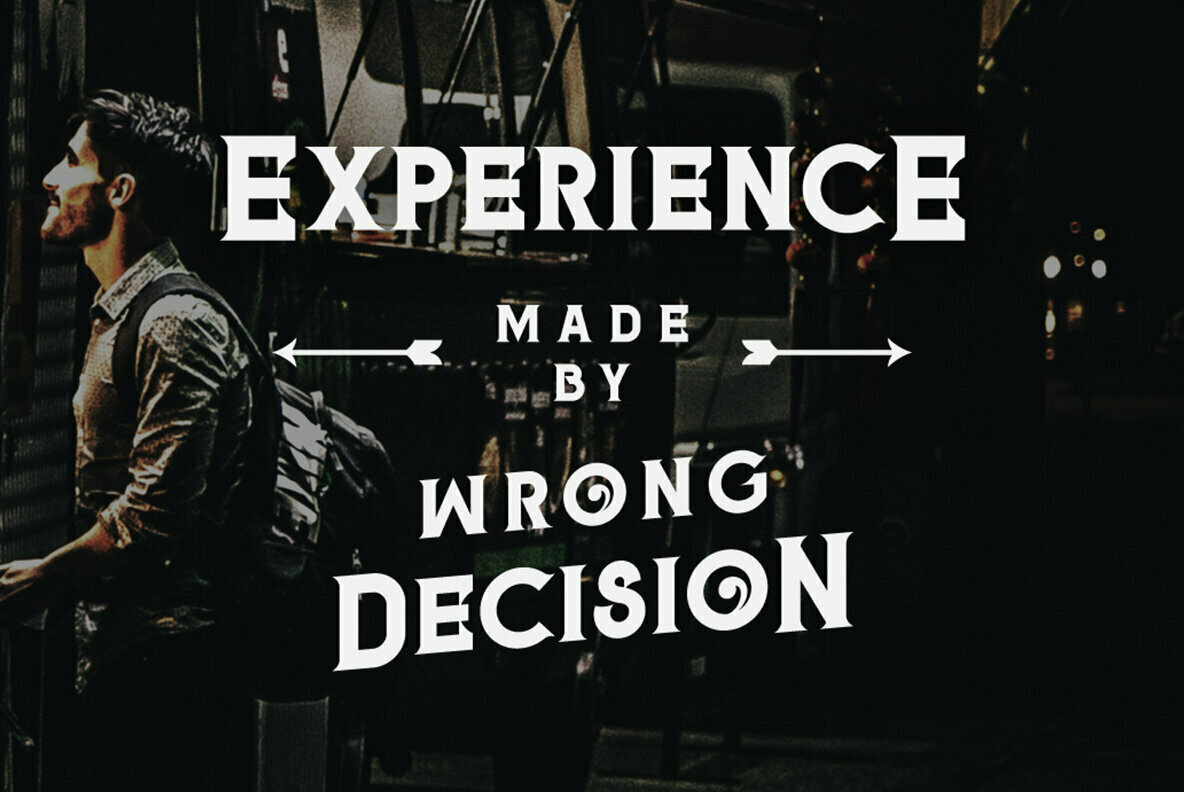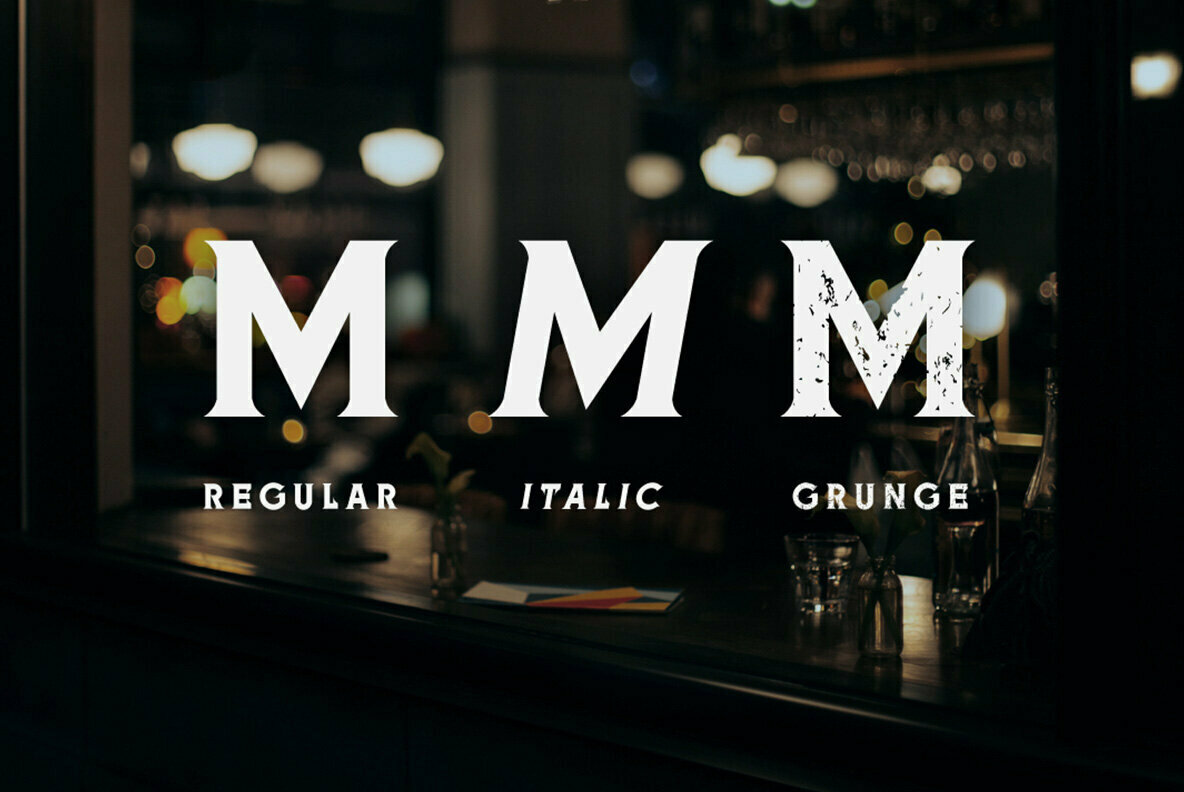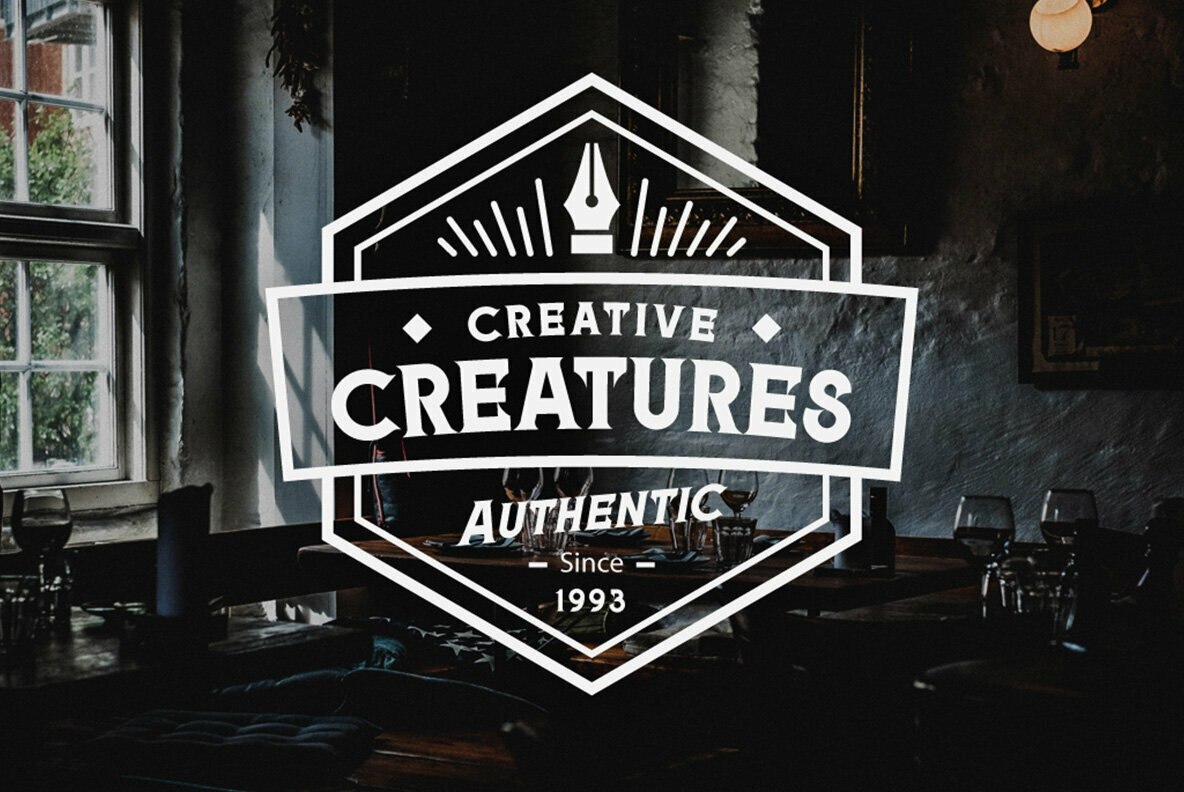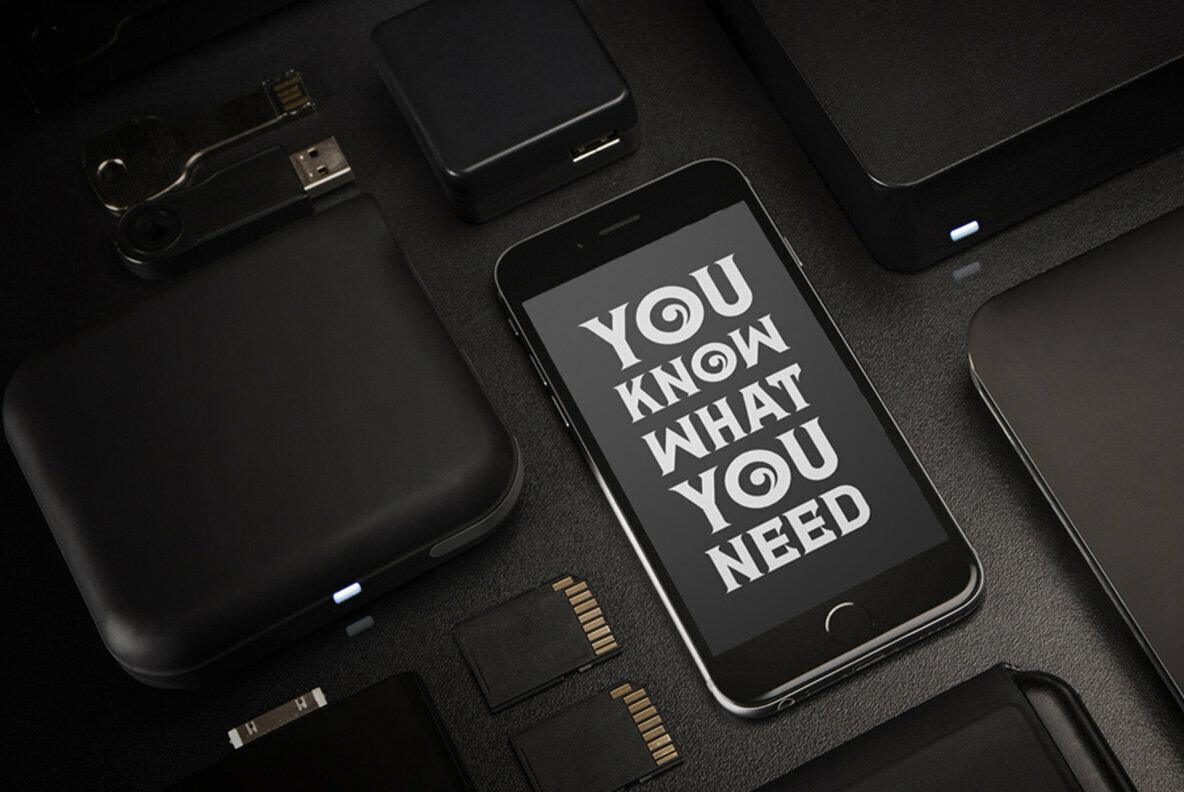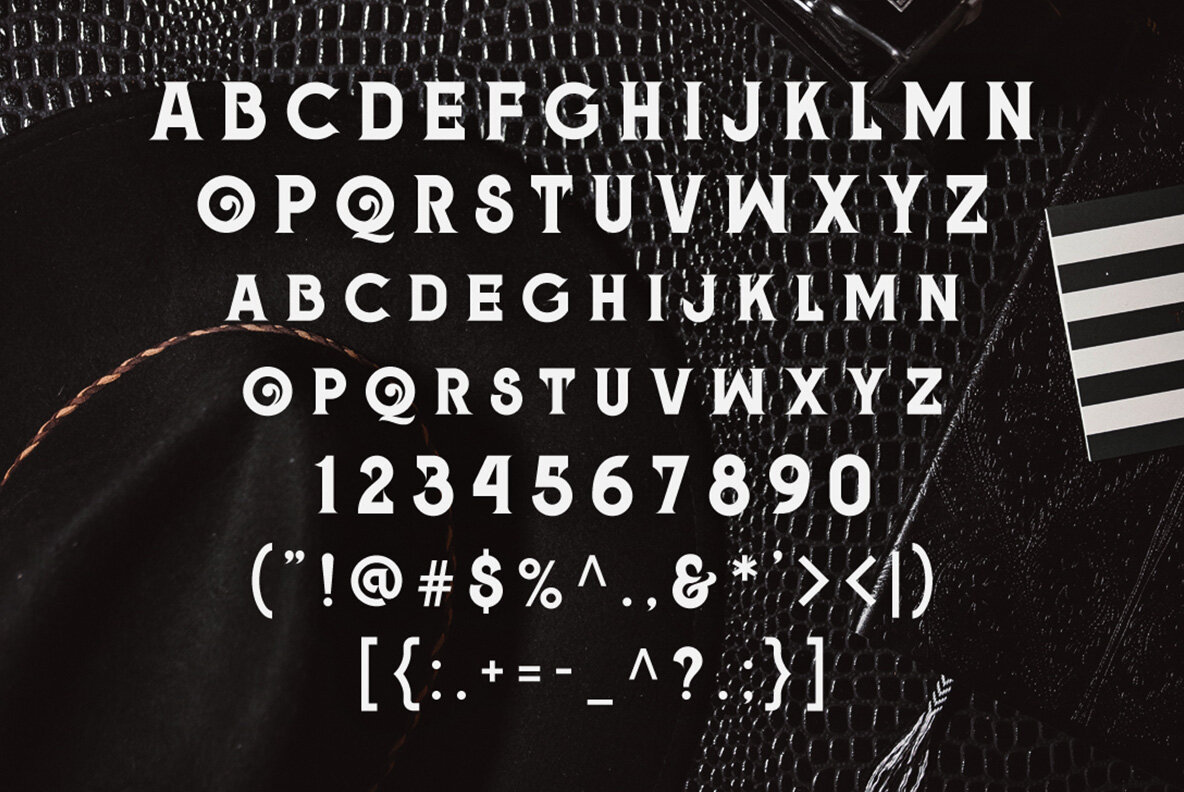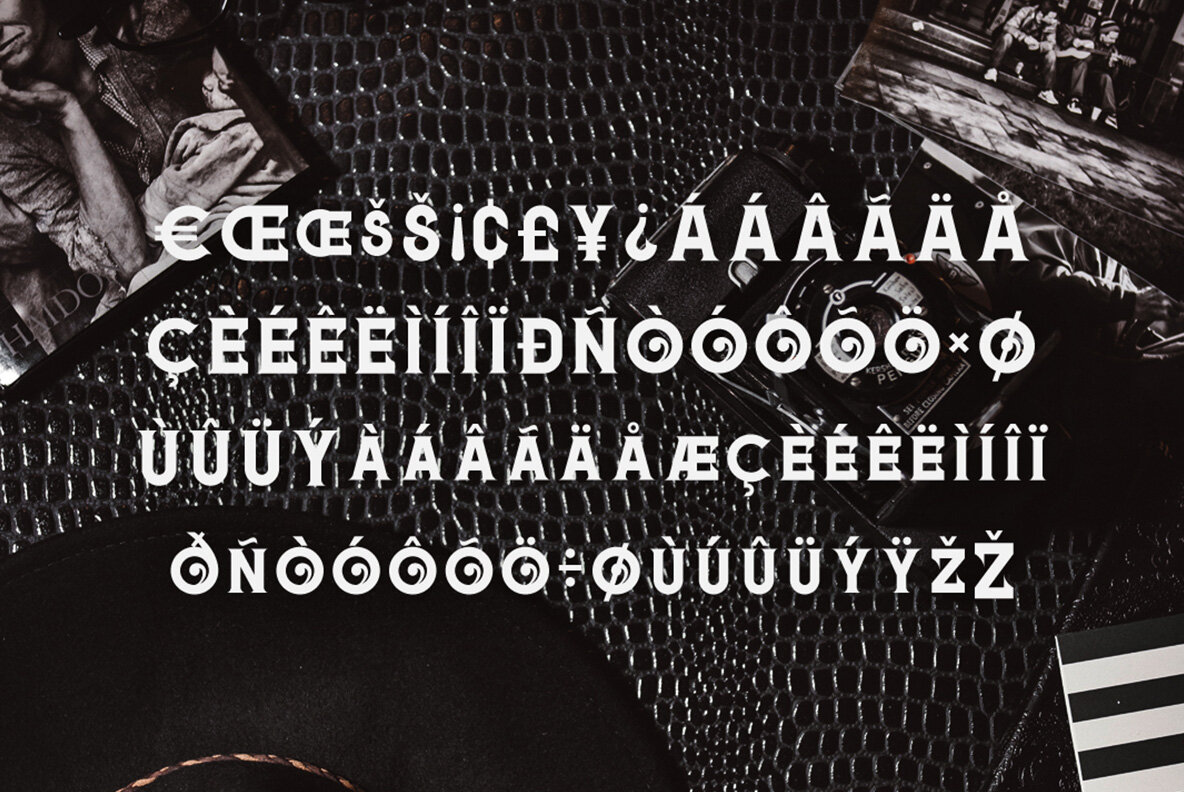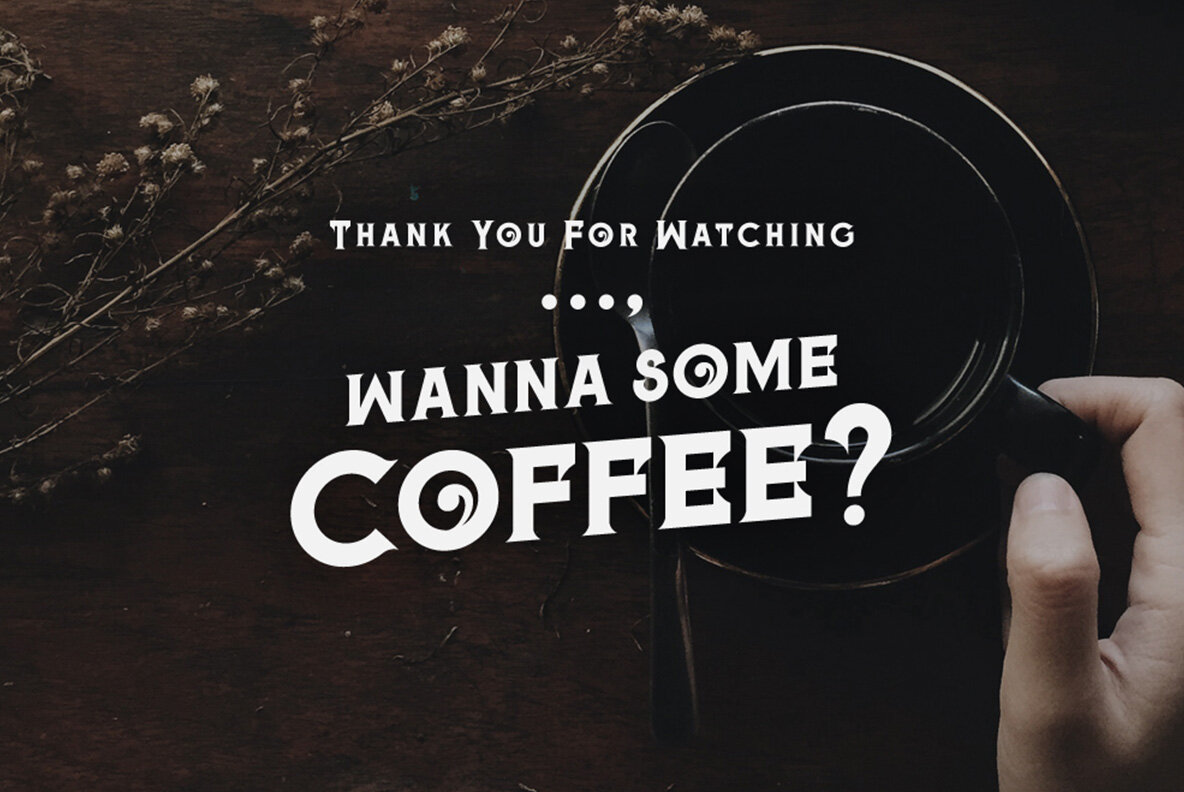
Meringam Font
Meringam Typeface embraces solid, semi-clean lettering that exudes both elegance and accuracy. Ideal for projects requiring a vintage flair, this typeface suits a wide range of applications, from quotes and badge designs to impactful headlines. Its structured yet flexible design allows it to adapt seamlessly to your creative needs, ensuring every project stands out.Meringam Typeface: A Blend of Precision and Vintage Charm